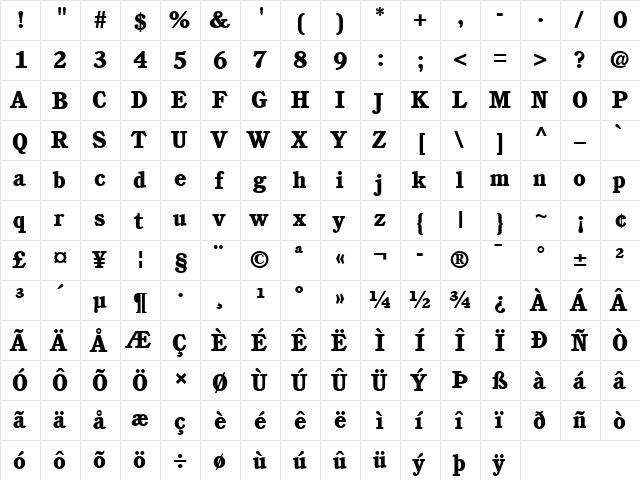
Cushing LT Medium Bold
Design Context for Cushing LT Medium Typeface
Cushing LT Medium takes a measured approach to typography — its balanced proportions and neutral character make it a reliable workhorse for both digital and print work. The heavy weight commands attention and anchors typographic hierarchies.
Pro Tip: Use Cushing LT Medium in both headline and body roles to test its range before committing to a single application.